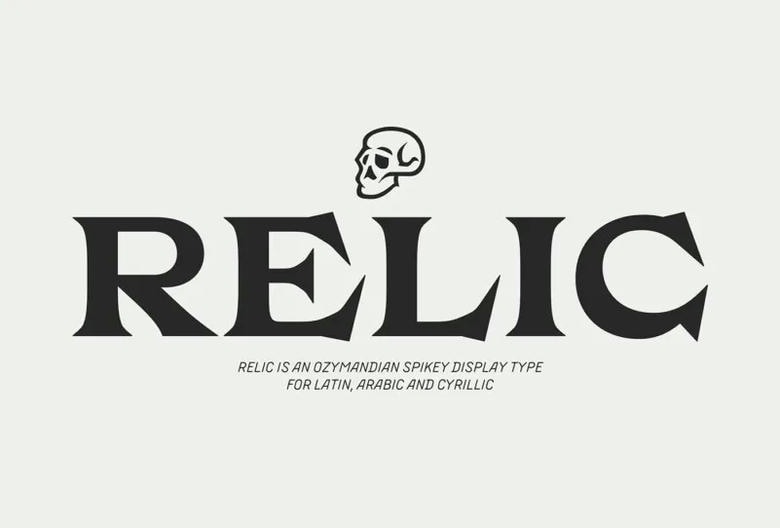
Relic Font
Relic is an excellent typeface that makes your designs a bit mysterious or intriguing. The Extended Latin and Cyrillic are also supported by Relic, as well as the Arabic with the Farsi, Kurdish and Urdu support.
It is packaged with three weights Canonic and Demotic (including Latin and Cyrillic), and Arabic (it is rather self-explanatory). The typeface is a heavy lapidary titling display type inspired by the grave stone lettering, and the italic is a crispy strongly slanted brush-like interpretation of the Victorian antique type.
Relic Serif Font